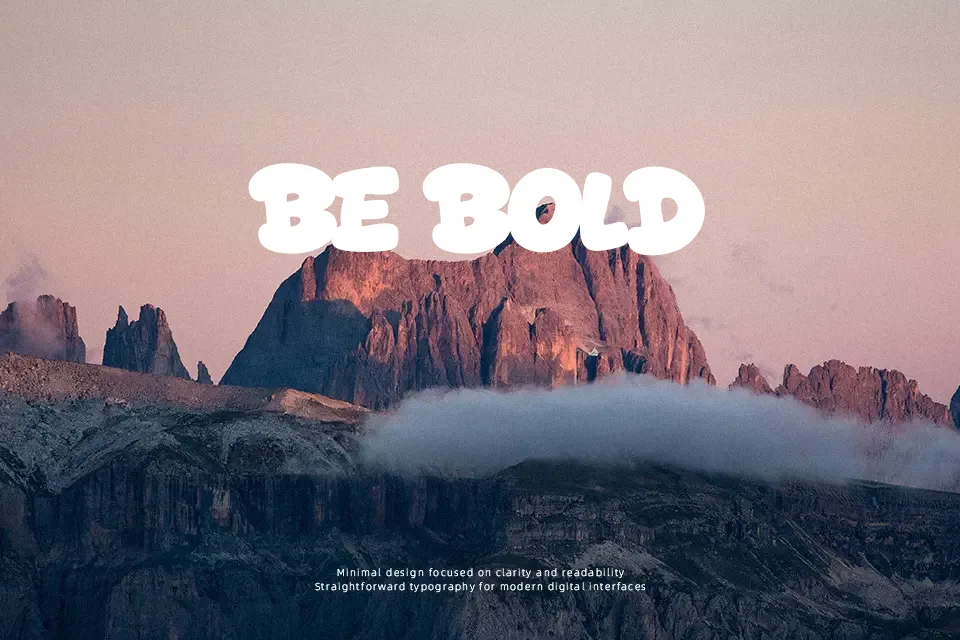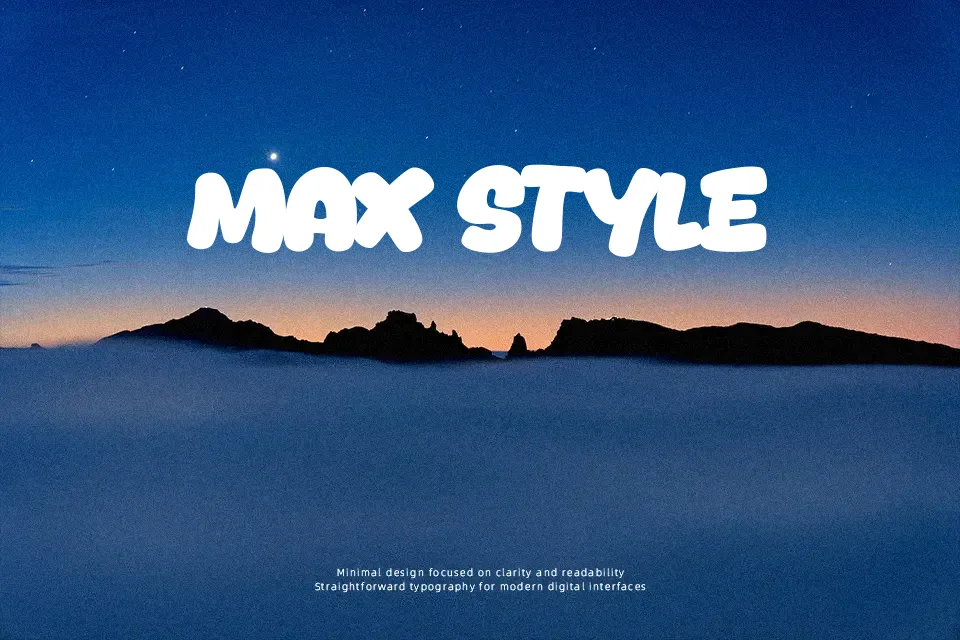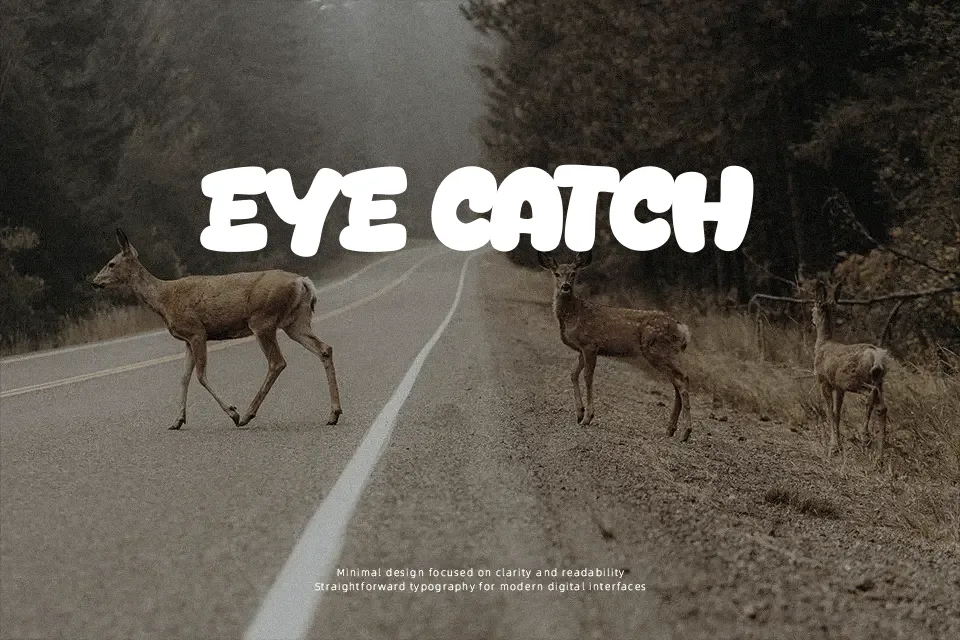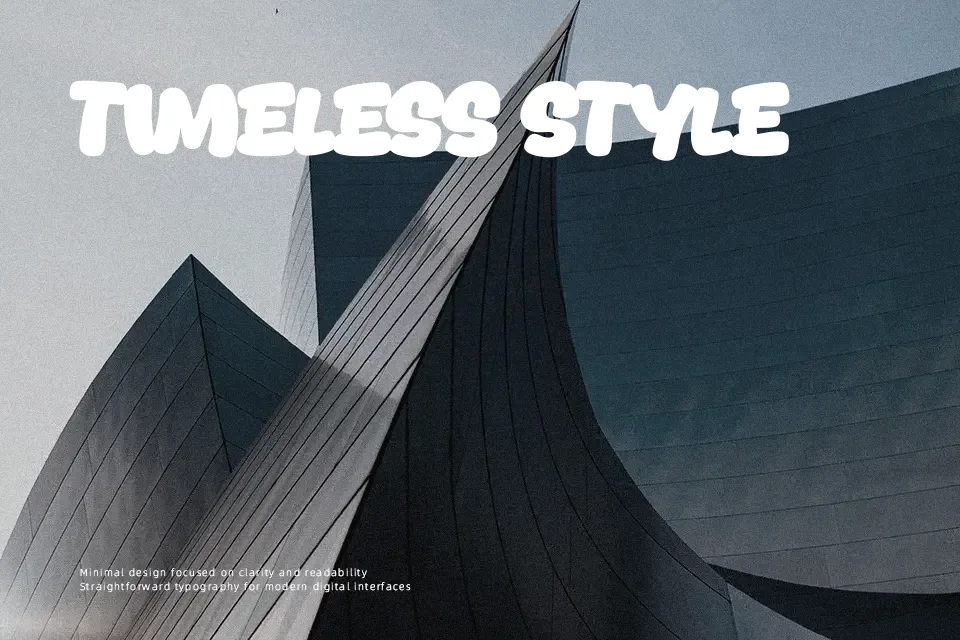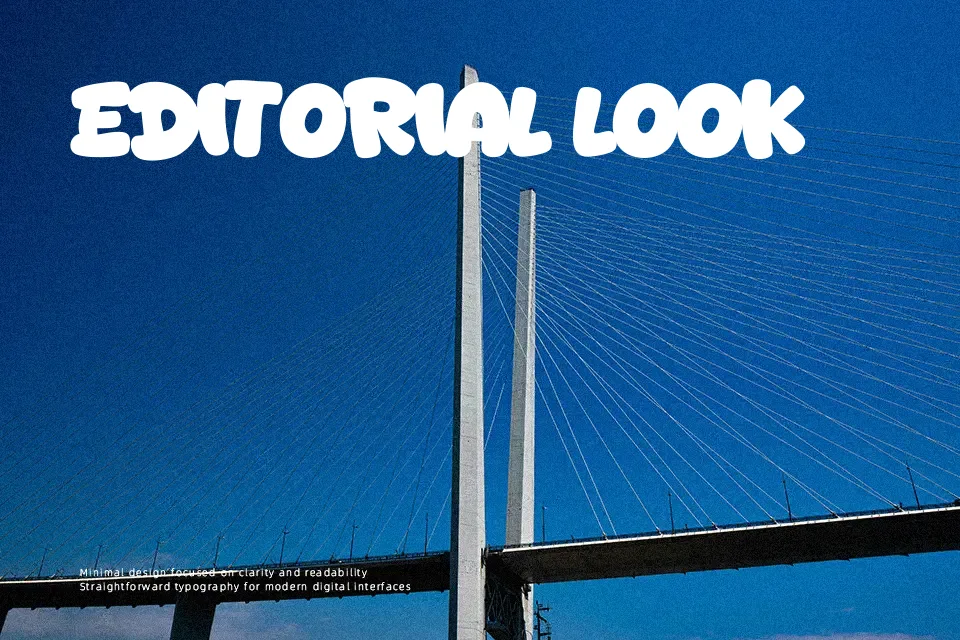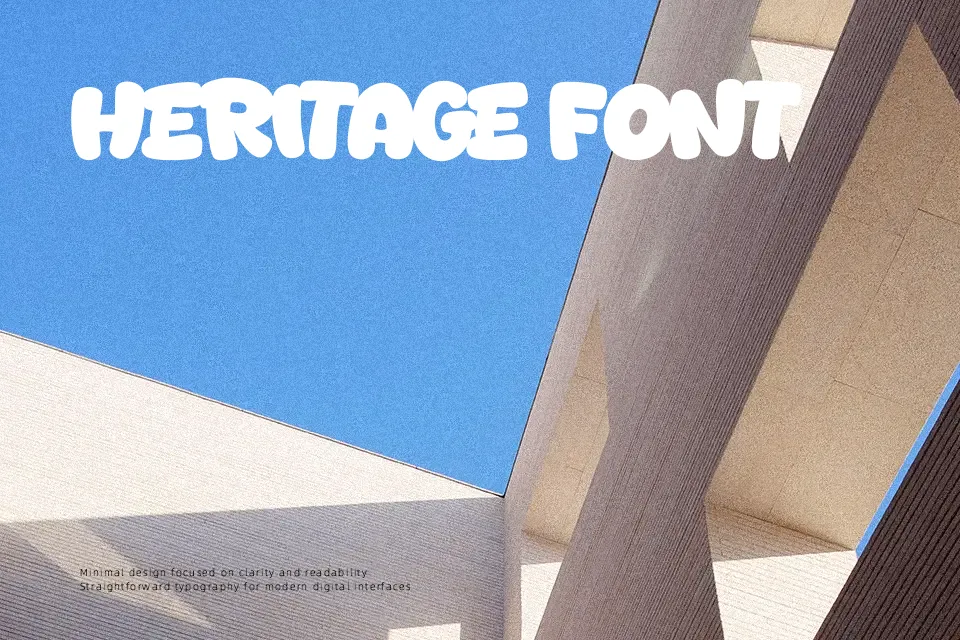
Bond Time Font
Designed by Khurasan™
Bond Time delivers a distinctly cheerful energy through its thick, heavy letterforms and an uneven, bouncy baseline. The robust strokes and relatively tight spacing create a dense yet highly legible structure that feels authentically hand-drawn. Overall, the typography gives off a casual, playful impression that easily captures attention. This cartoonish display font shines in lighthearted applications like youth-oriented apparel graphics, colorful toy packaging, and animated video titles. It successfully injects personality into creative branding, though designers should strictly avoid using it in corporate presentations or long-form editorial layouts where the heavy weight and quirky alignment severely compromise readability. Compared to standard geometric sans-serifs, this typeface offers far more organic warmth and approachability.
Youth-oriented apparel graphics
Colorful toy packaging
Animated video titles
Lighthearted social media campaigns
Corporate business presentations
Dense body text paragraphs
Minimalist luxury branding
Perfect for branding, kids, and packaging, with a creative and cartoon style.